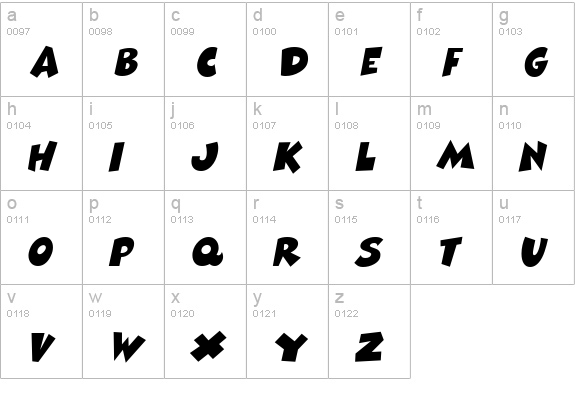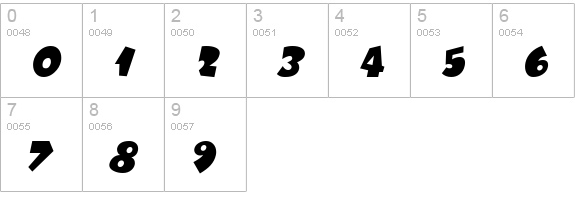
ComixHeavy Italic Font Details
ComixHeavy Italic is a distinctive, italic variant in the ComixHeavy typeface family \xE2\x80\x94 well suited to design and typography projects.
ComixHeavy Italic font is a bold and dynamic typeface that exudes a sense of creativity and modernity. Its sleek, slanted design adds a touch of sophistication to any project, making it perfect for headlines, logos, posters, and more. The italicized characters of ComixHeavy Italic font bring a sense of movement and energy to your text, making it stand out and grab the viewer's attention. What's even better is that ComixHeavy Italic font is completely free to download at FontsMarket.com. This means you can easily access this stylish typeface for any of your design needs without any cost. Whether you're working on a personal project or a professional one, ComixHeavy Italic font is a versatile and eye-catching choice that will elevate your designs to the next level. Don't miss out on this fantastic opportunity to enhance your typography with this fantastic free font!